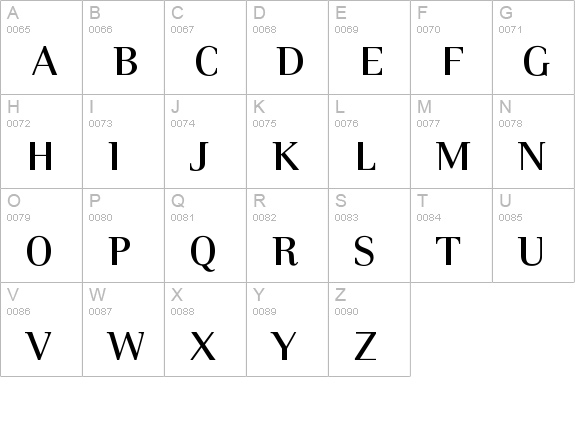
NEWCENT-Roman Font Details
NEWCENT-Roman is a classic and elegant font that exudes sophistication and timelessness. With its clean lines and balanced proportions, this typeface is perfect for a wide range of design projects, from branding to editorial design. The NEWCENT-Roman font offers a sense of refinement and professionalism, making it a versatile choice for both digital and print applications. Best of all, NEWCENT-Roman is available for free download at FontsMarket.com. This means you can easily access this stunning font and incorporate it into your projects without any cost. Whether you're a graphic designer, web developer, or just someone looking to enhance their creative work, NEWCENT-Roman is a valuable addition to your font collection. Download it today and elevate your designs with this timeless and sophisticated typeface.